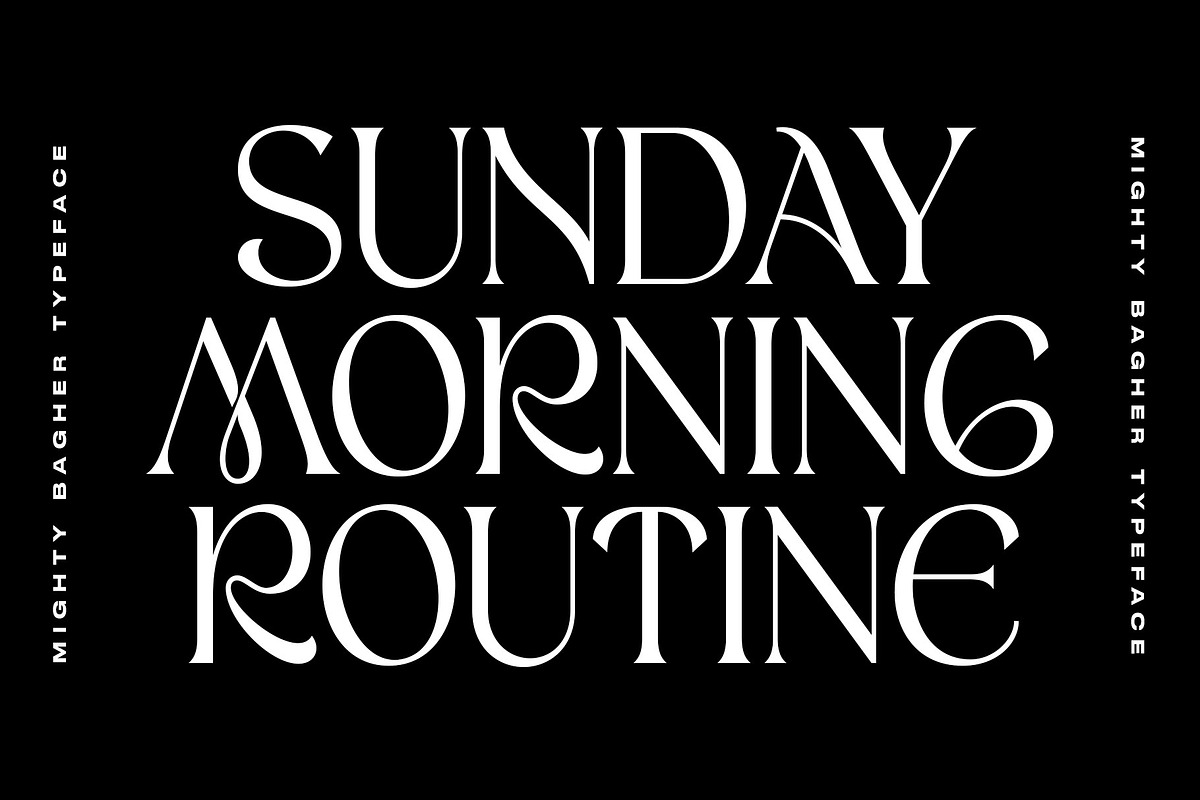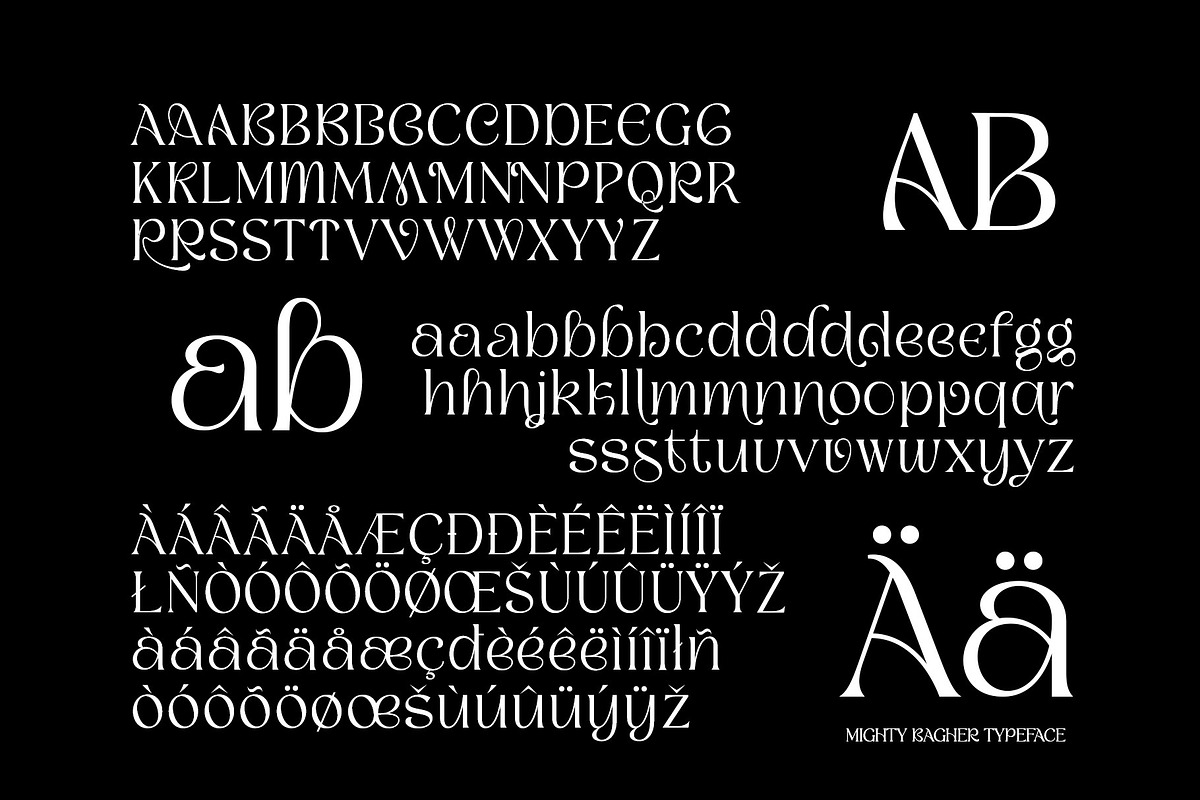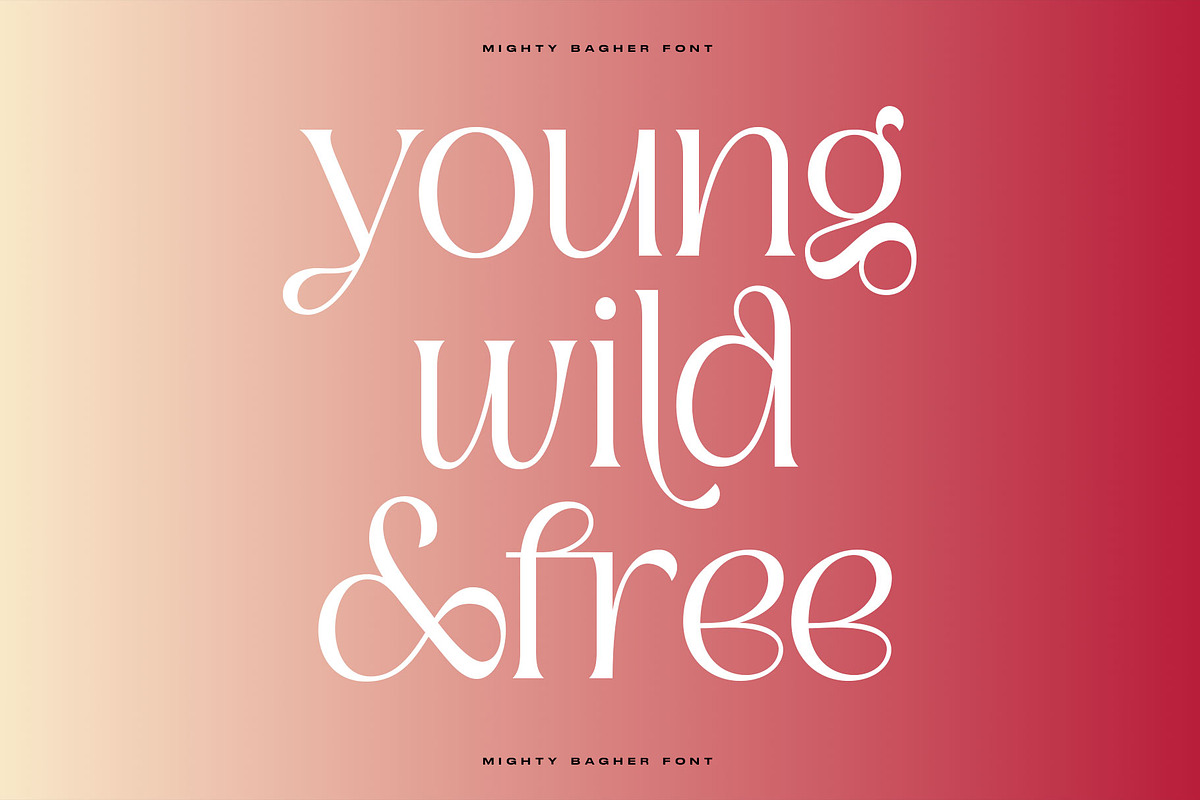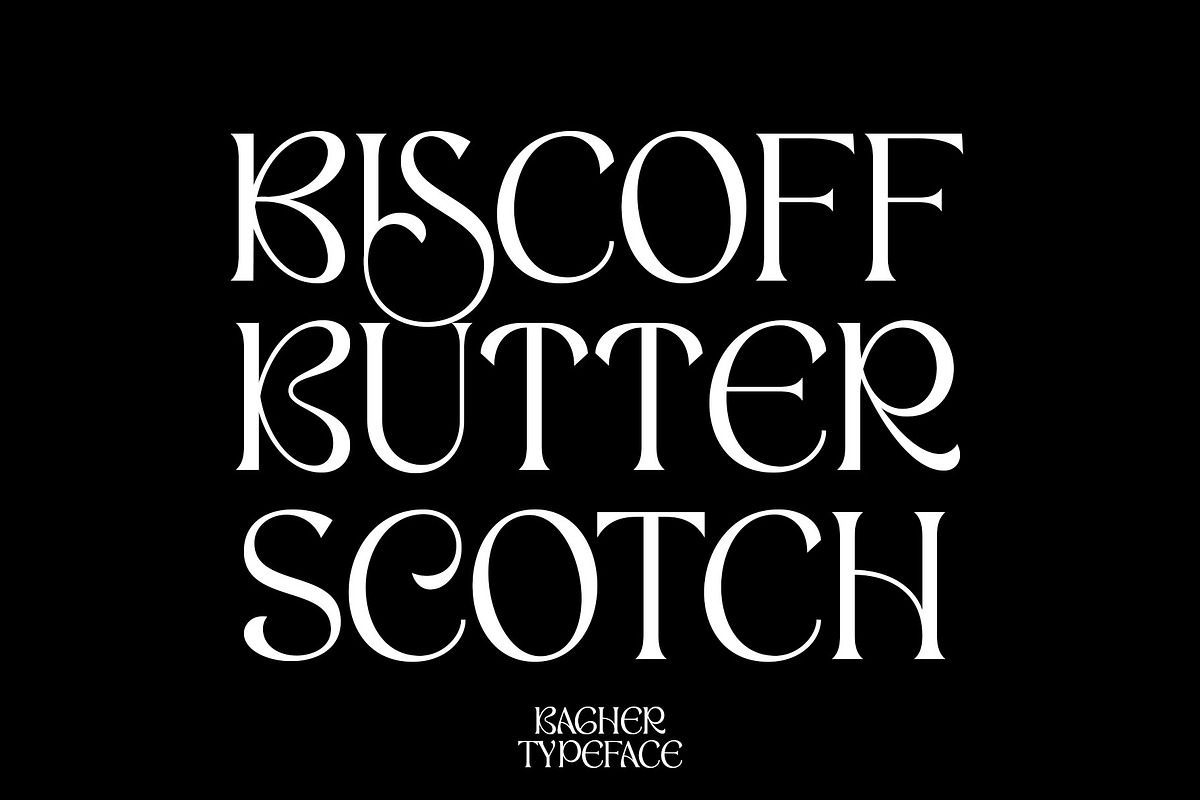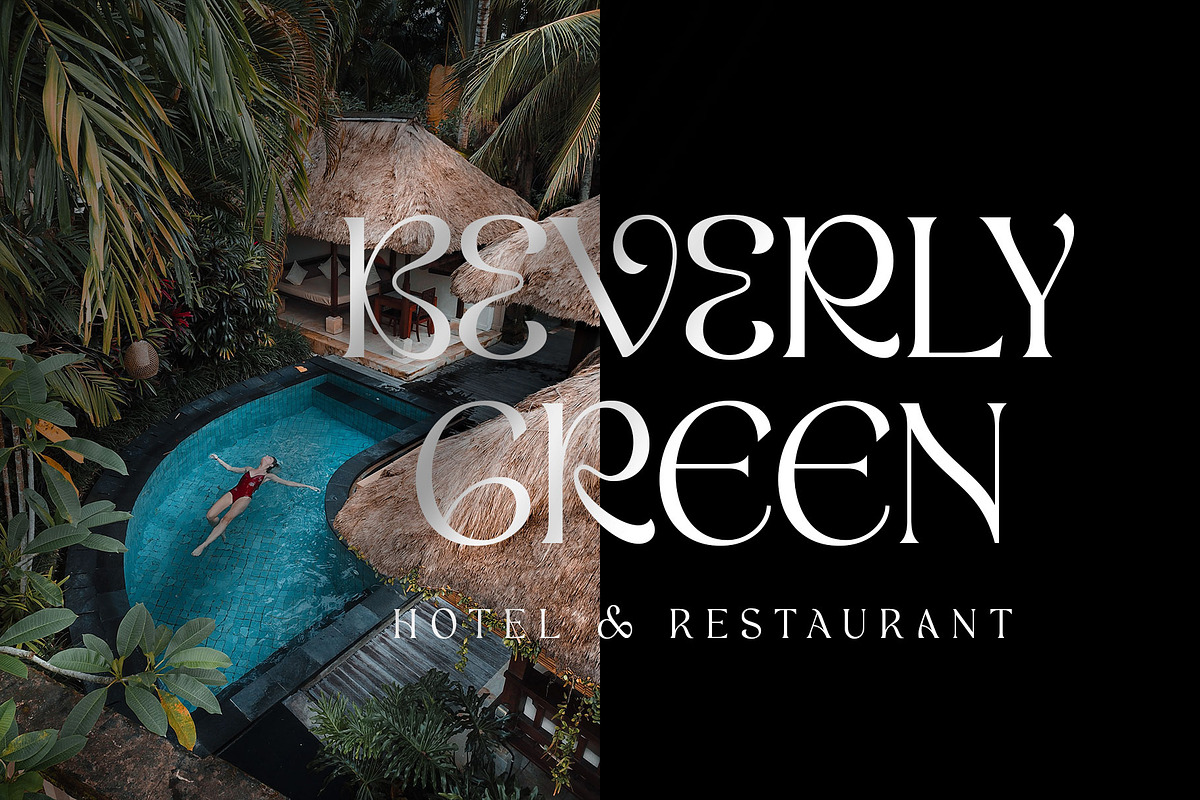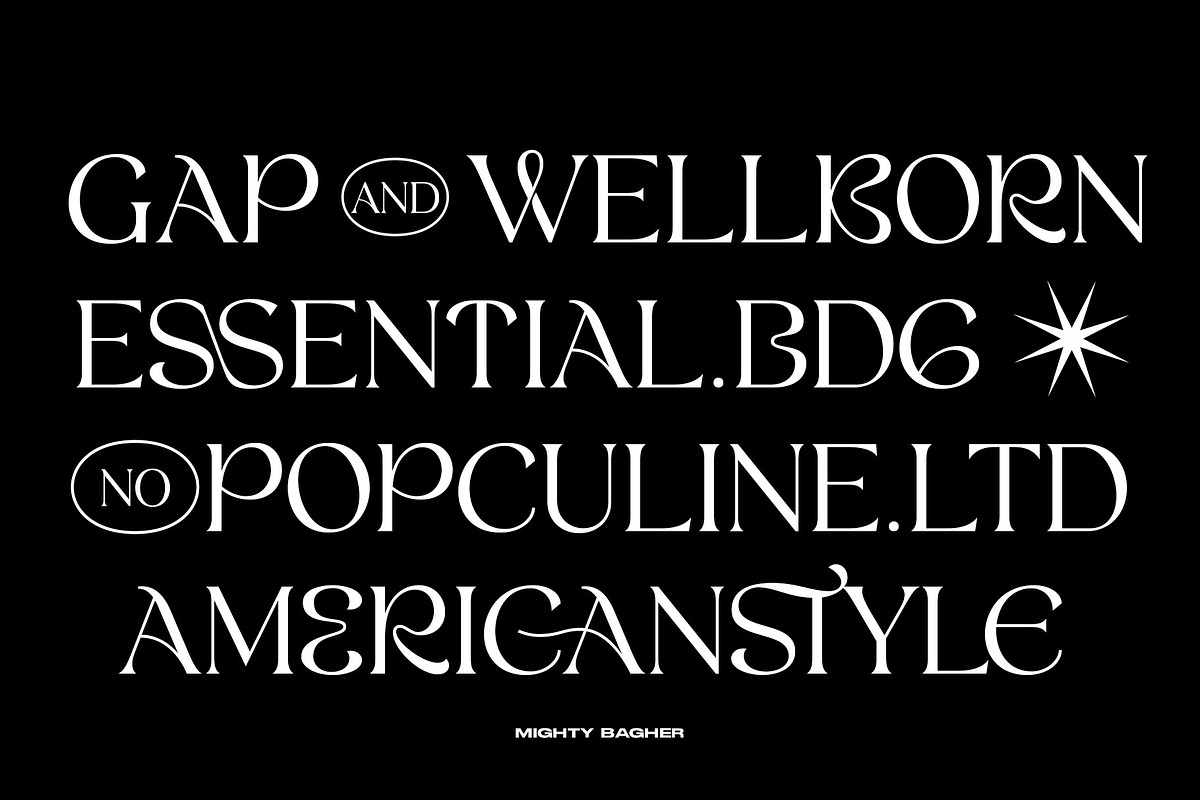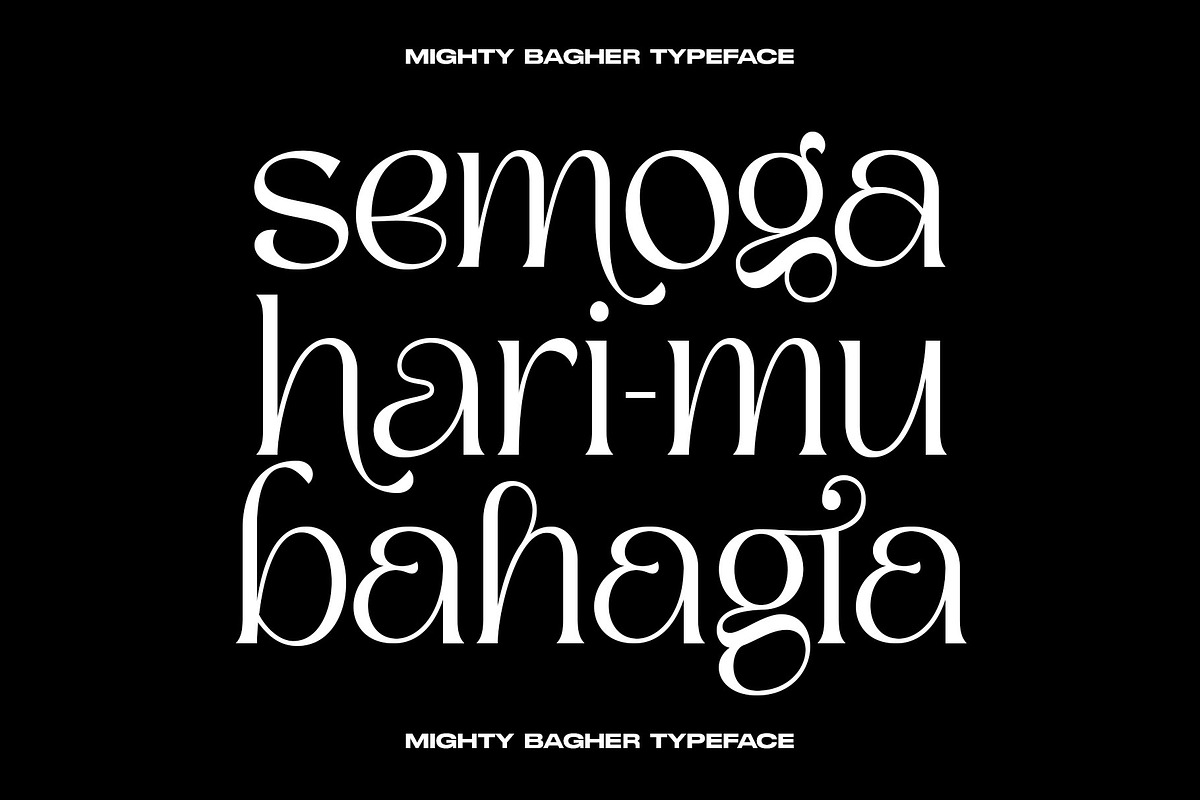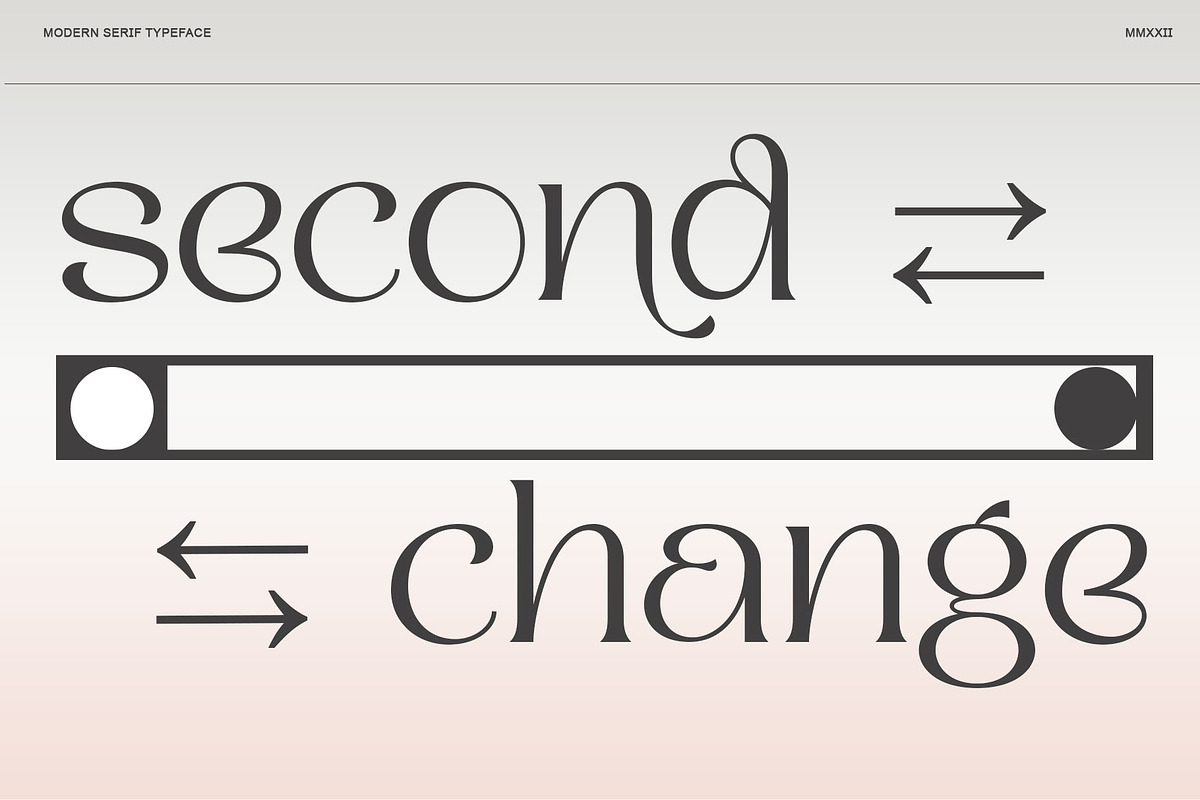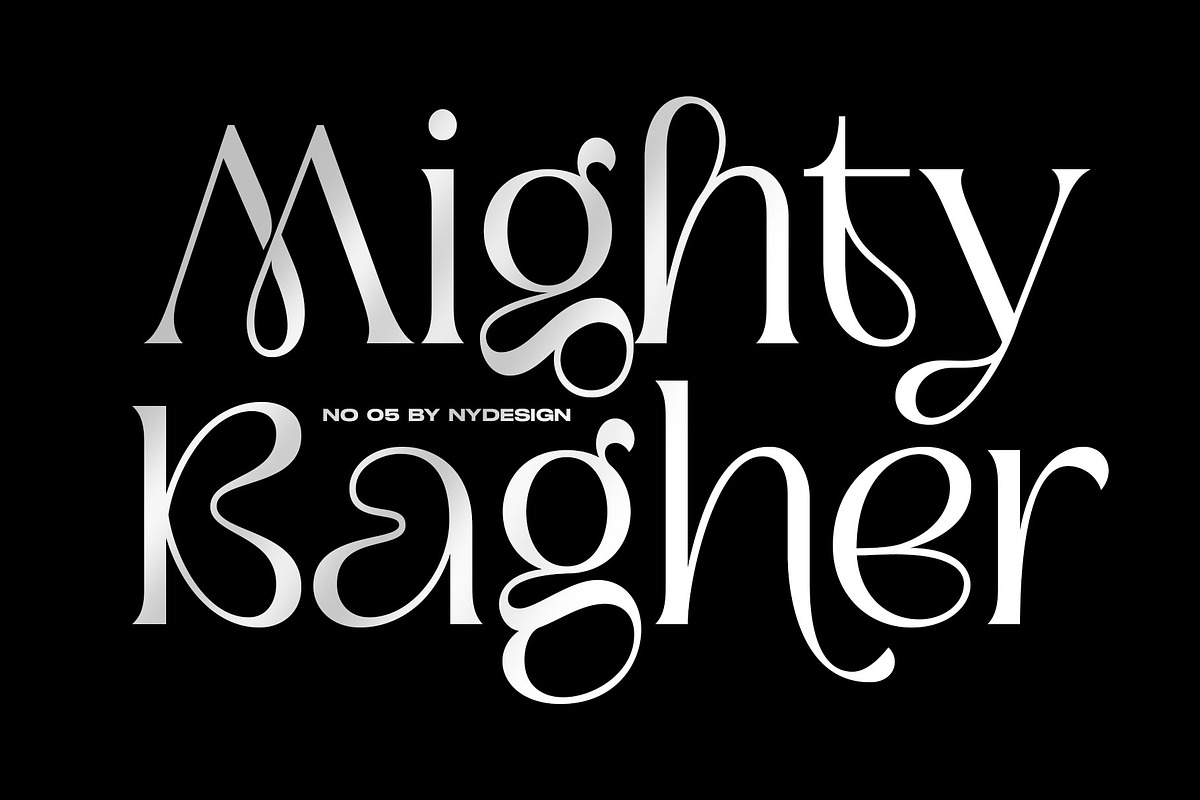
Mighty Bagher
Mighty Bagher a modern style font. Made with accurate accuracy. With alternative characters and ligatures that make your work very special. It is perfect for branding design, logo, greeting cards, headline packaging. and other designs. Immediately use our fonts to make your work even more amazing.
Mighty Bagher is also included full set of: